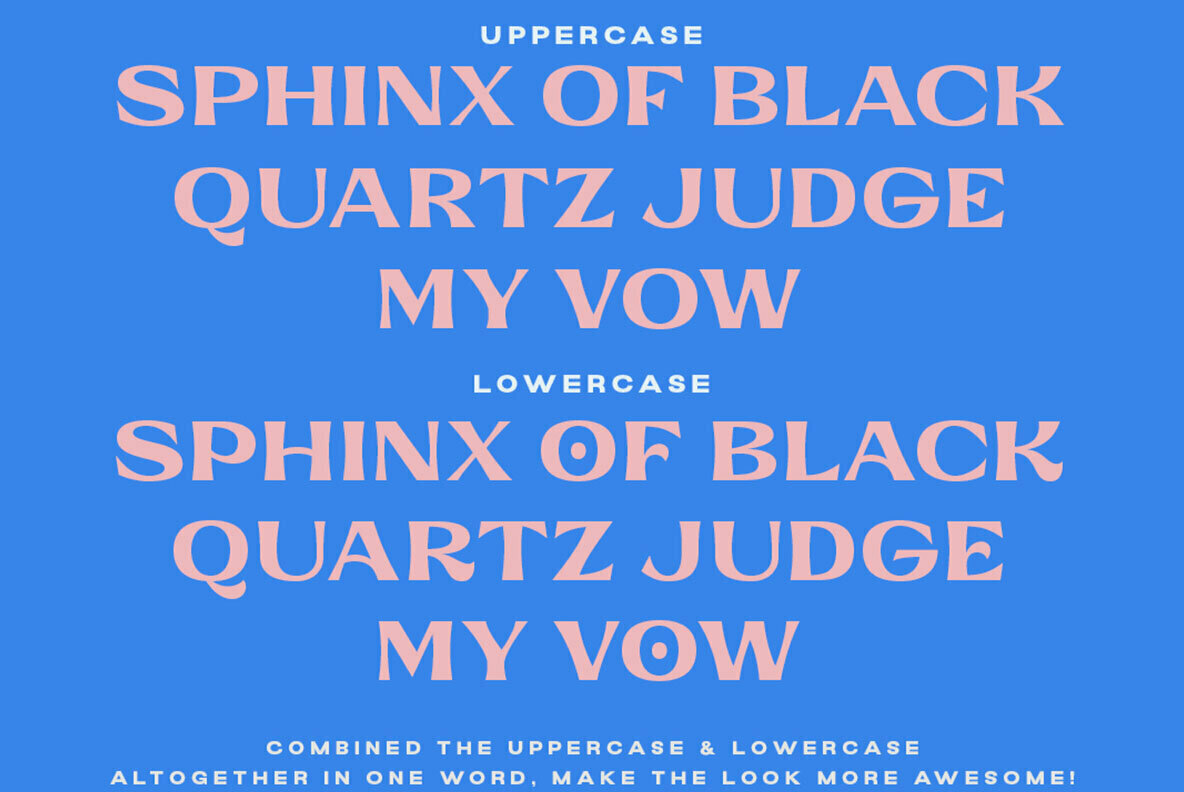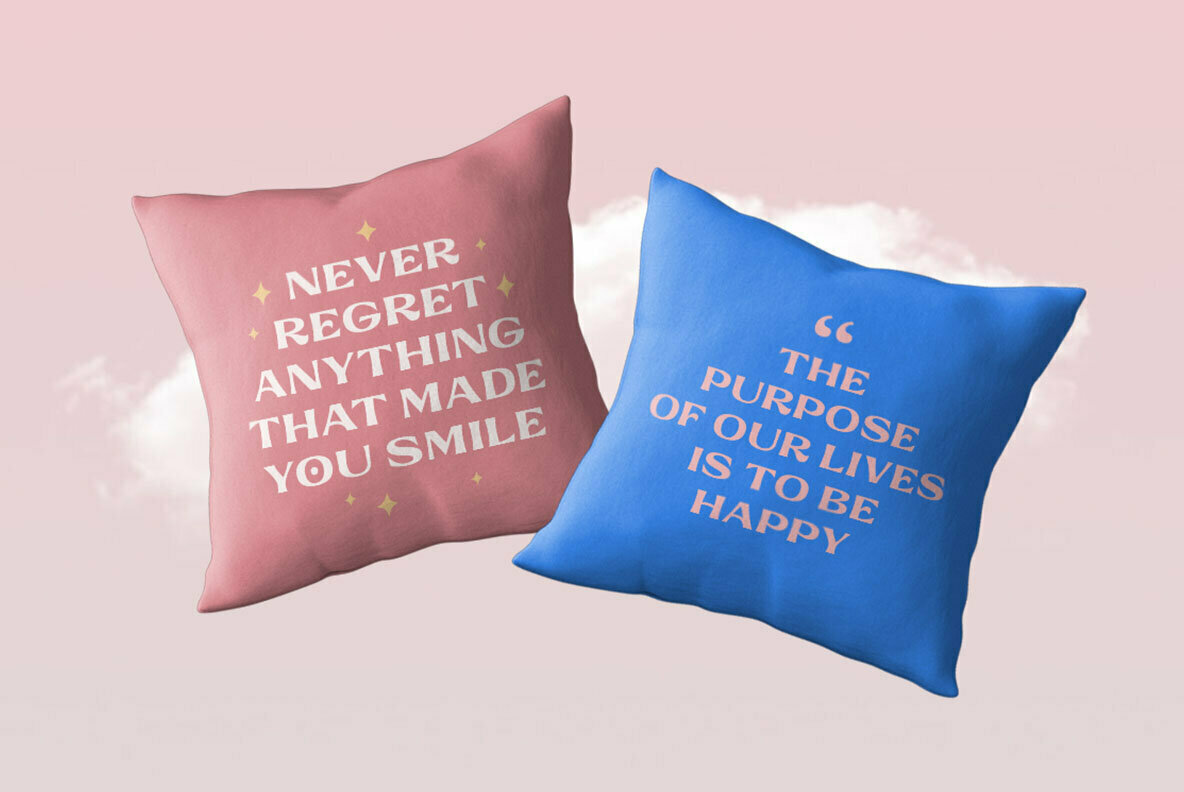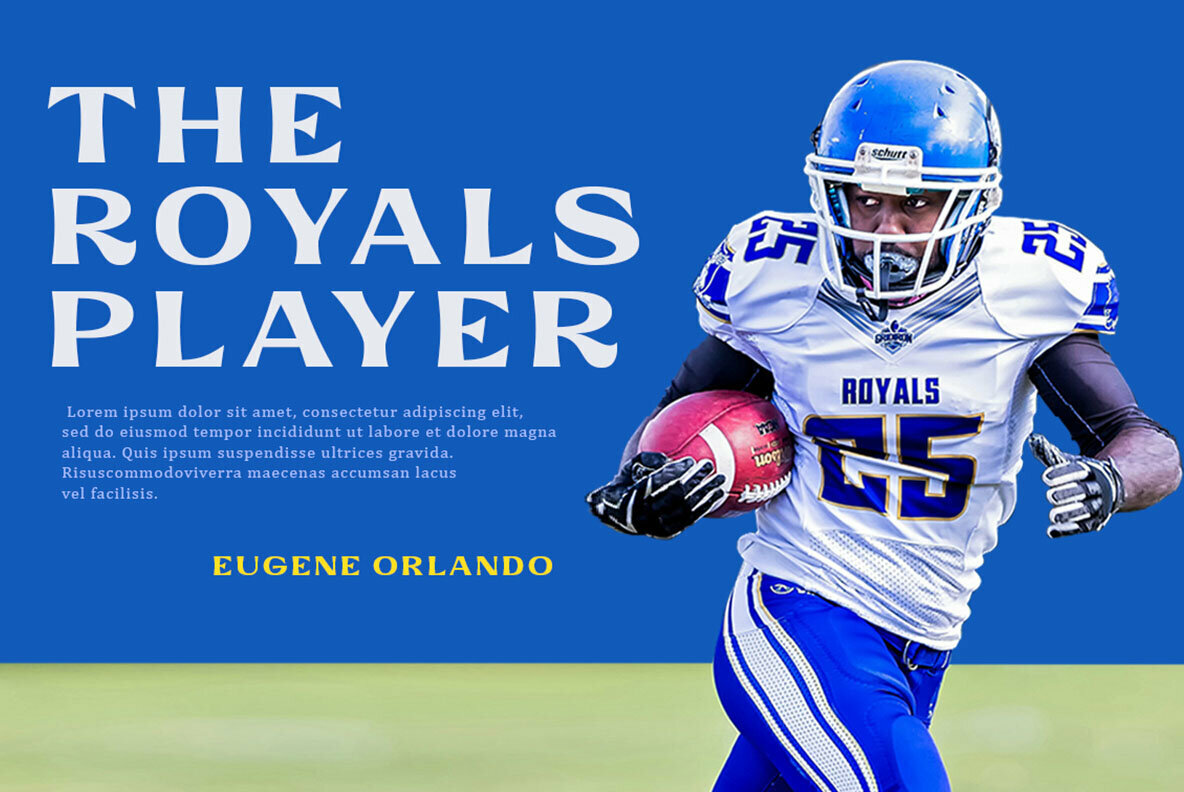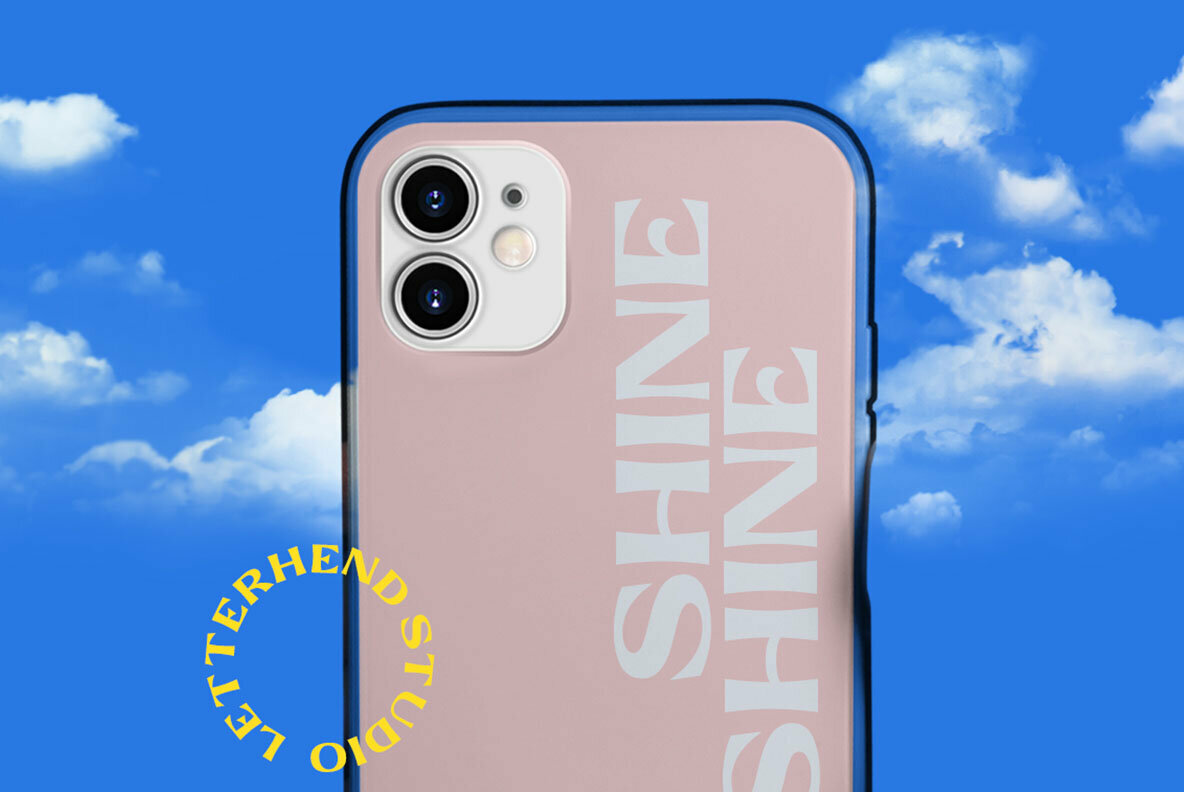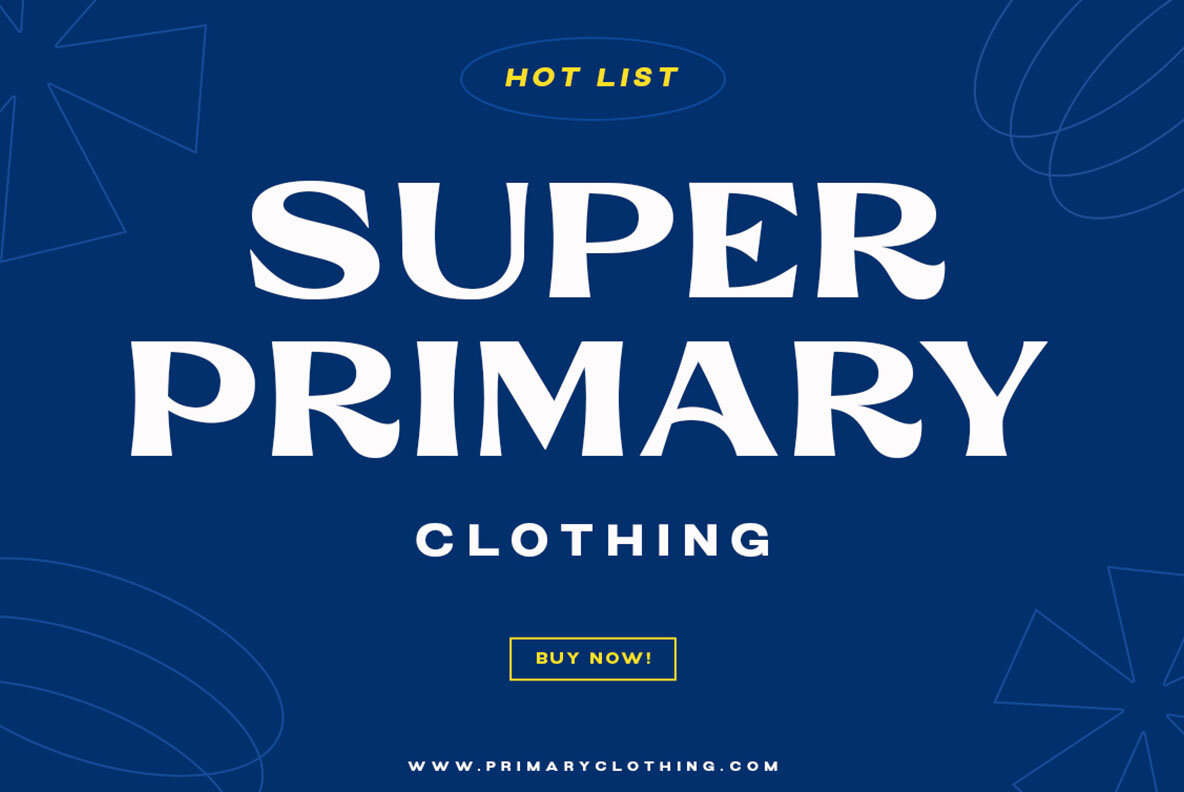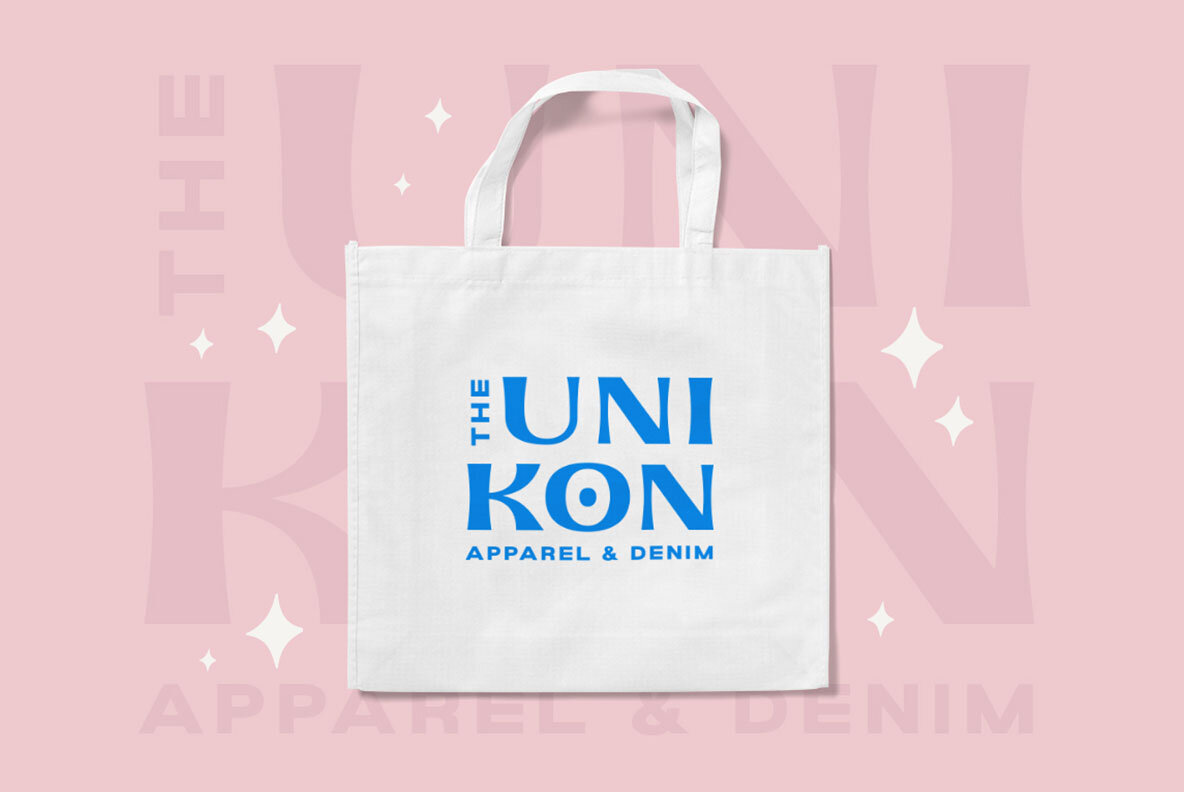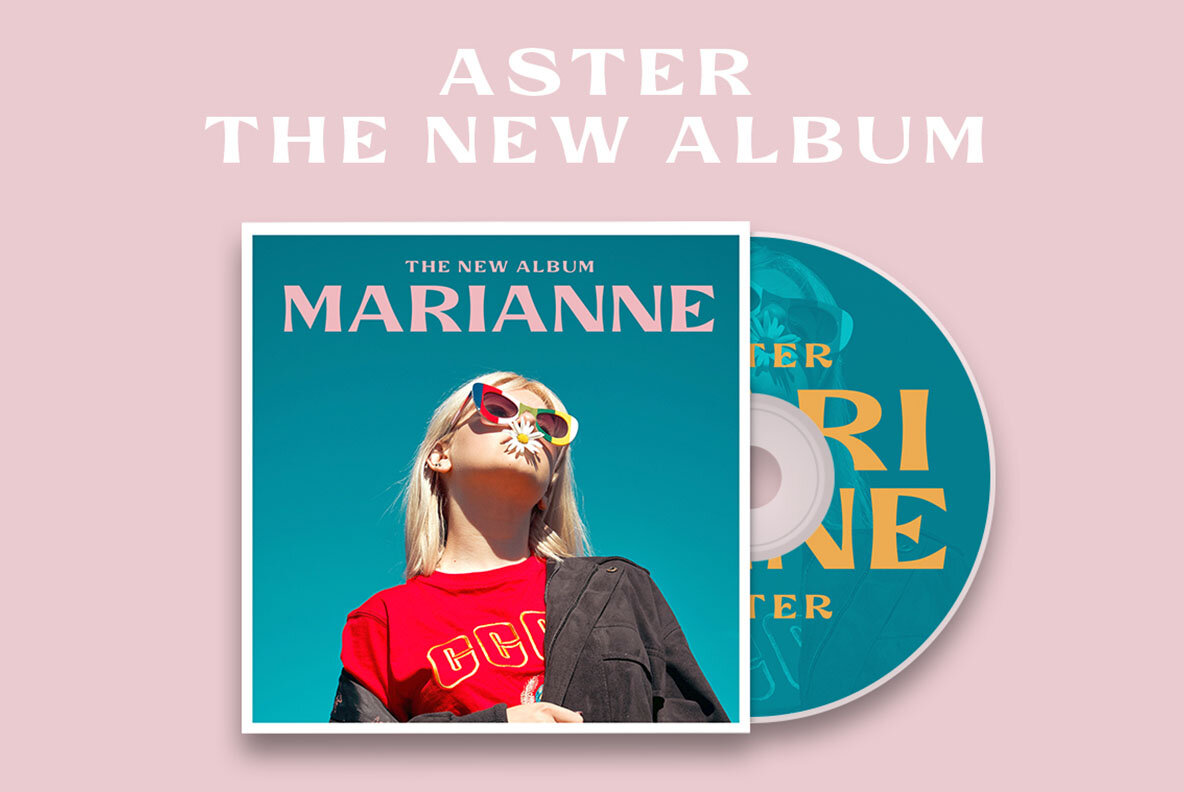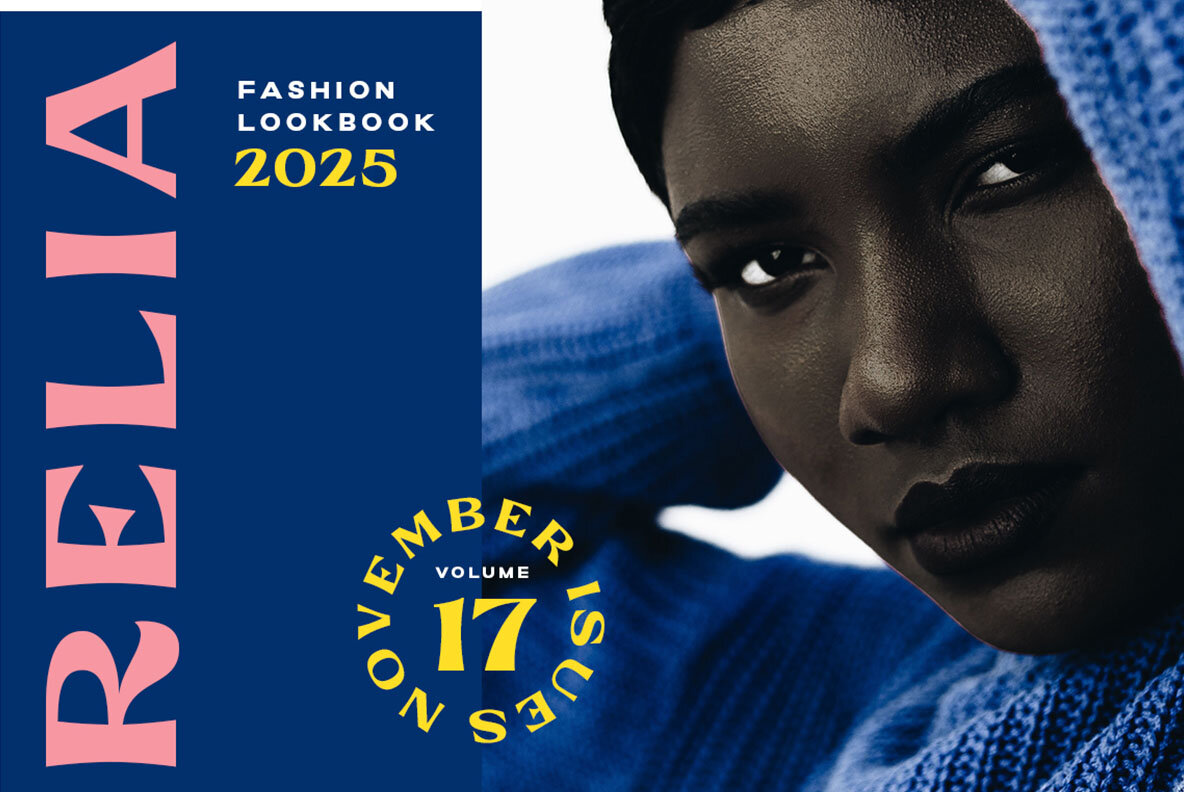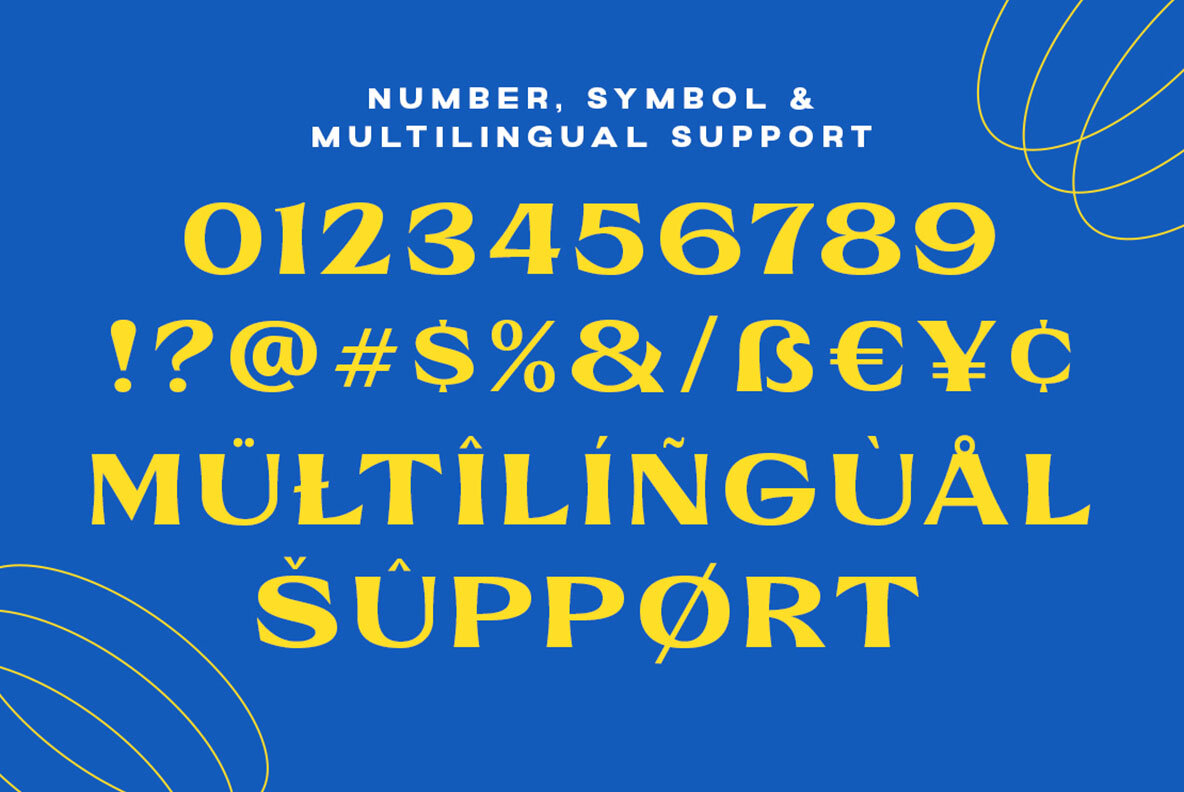
Evidance Font
Evidance Regular
Evidance is a sophisticated display typeface with modern look and feel. Perfectly to be applied to the other various formal forms such as invitations, labels, logos, magazines, books, greeting / wedding cards, packaging, fashion, make up, stationery, novels, labels or any type of advertising purpose.
- Uppercase & Lowercase (Alternate)
- Numbers and Punctuation
- Alternates & Ligatures